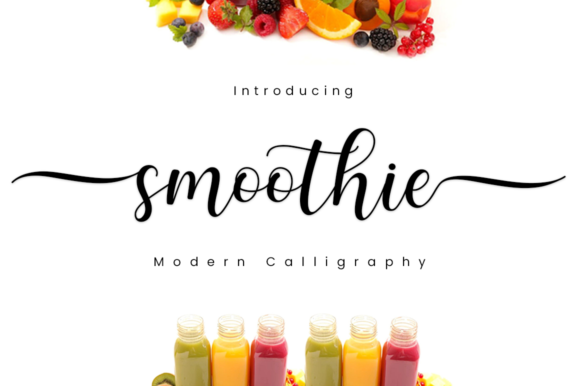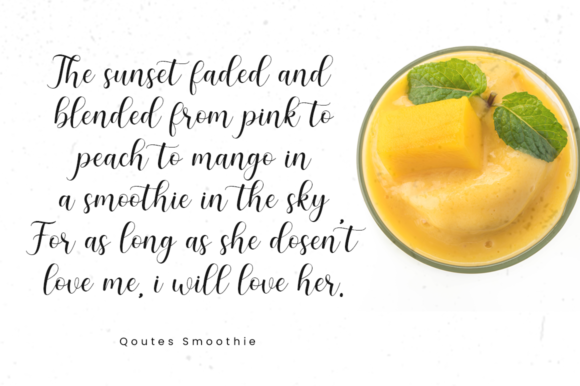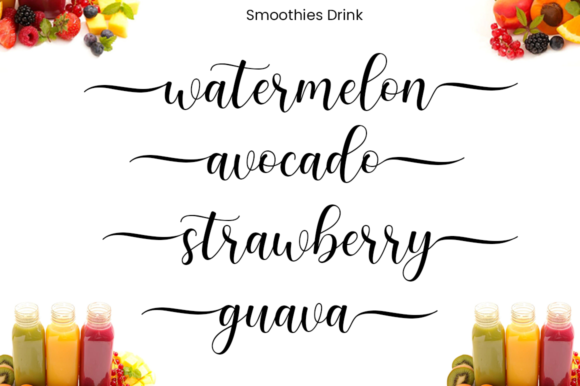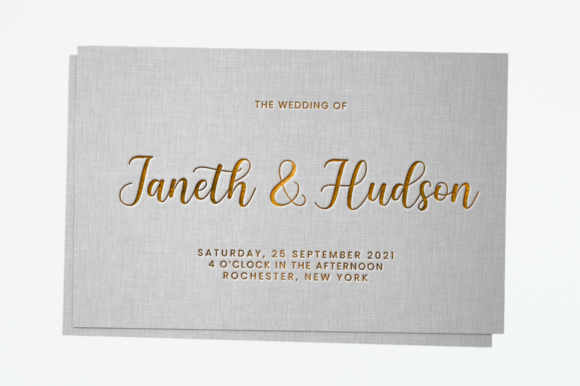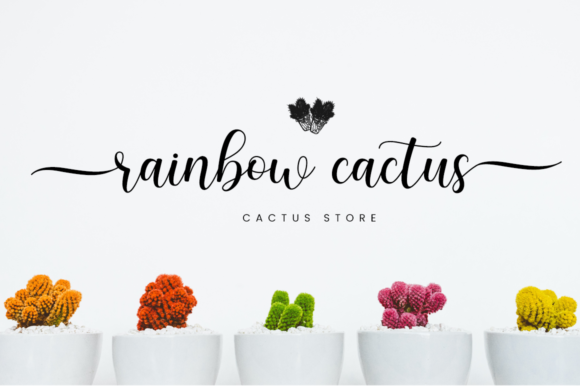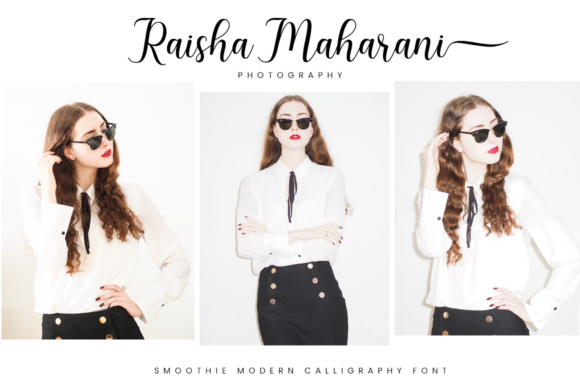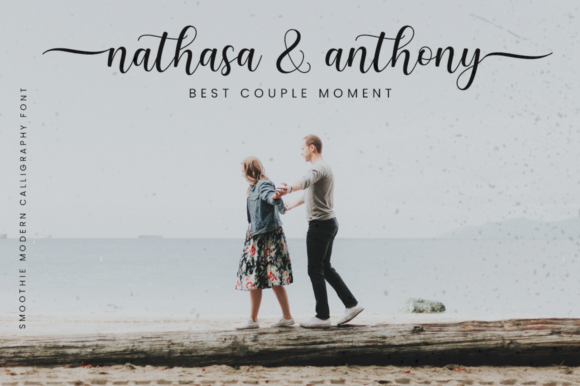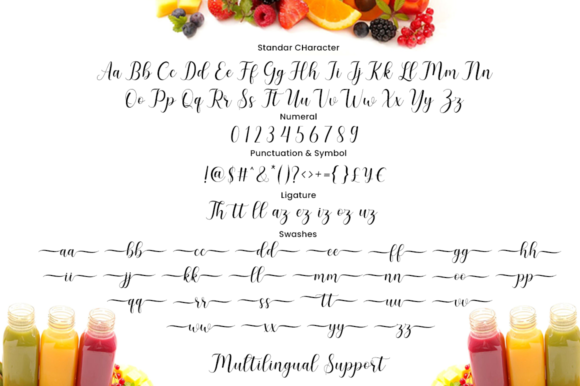
Smoothie Font
About Smoothie Font
Smoothie feels equally charming and elegant. It looks stunning on wedding invitations, thank you cards, quotes, greeting cards, logos, business cards and every other design which needs a handwritten touch.